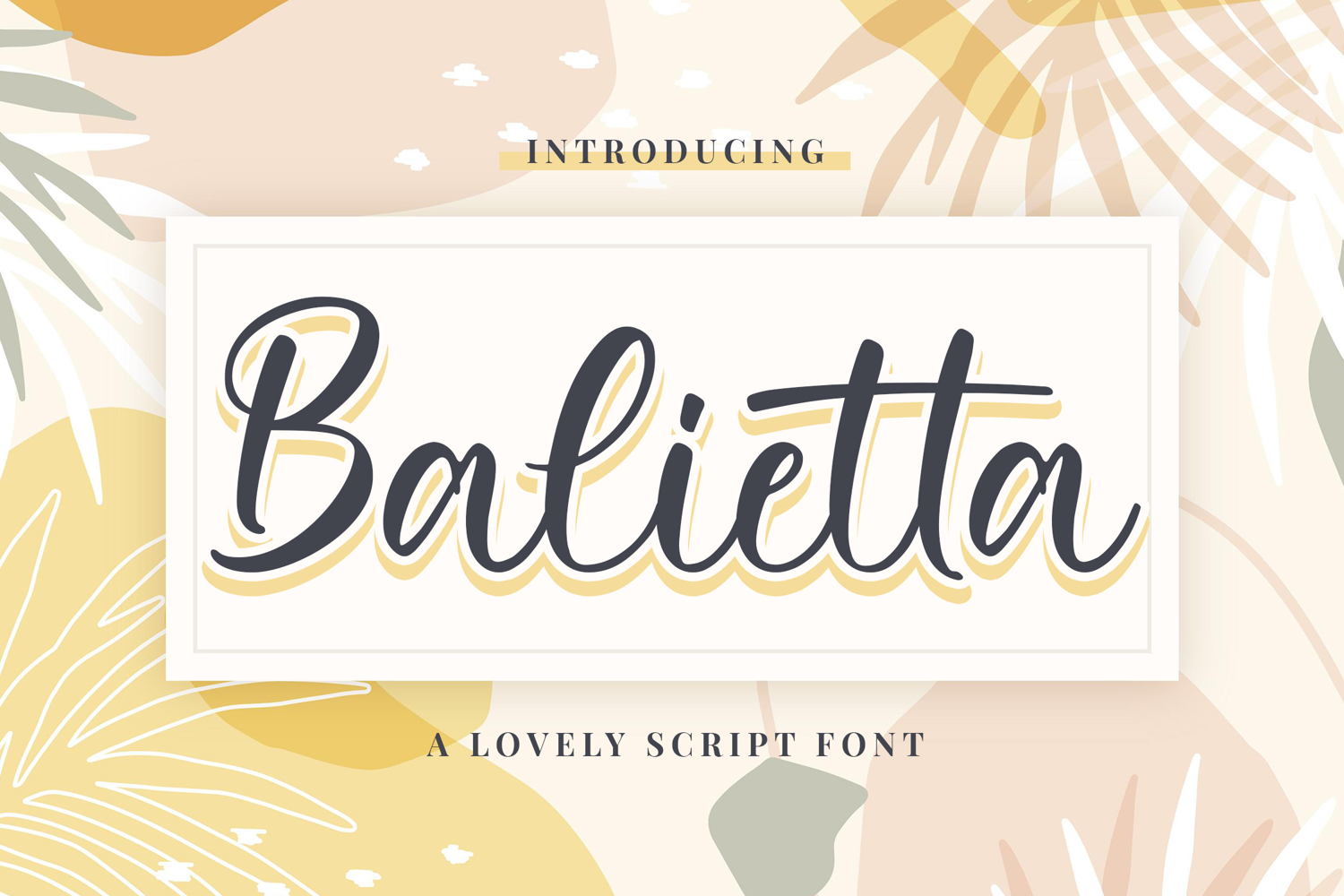
Balietta - Lovely Script Font
Balietta – Lovely Script font with a natural handwritten feel. This handmade font will make your design has a beautiful natural touch for each details. It is perfect for any design project as Invitation,logo, book cover, craft or any design purposes. This font is PUA encoded which means you can access all of ligatures.